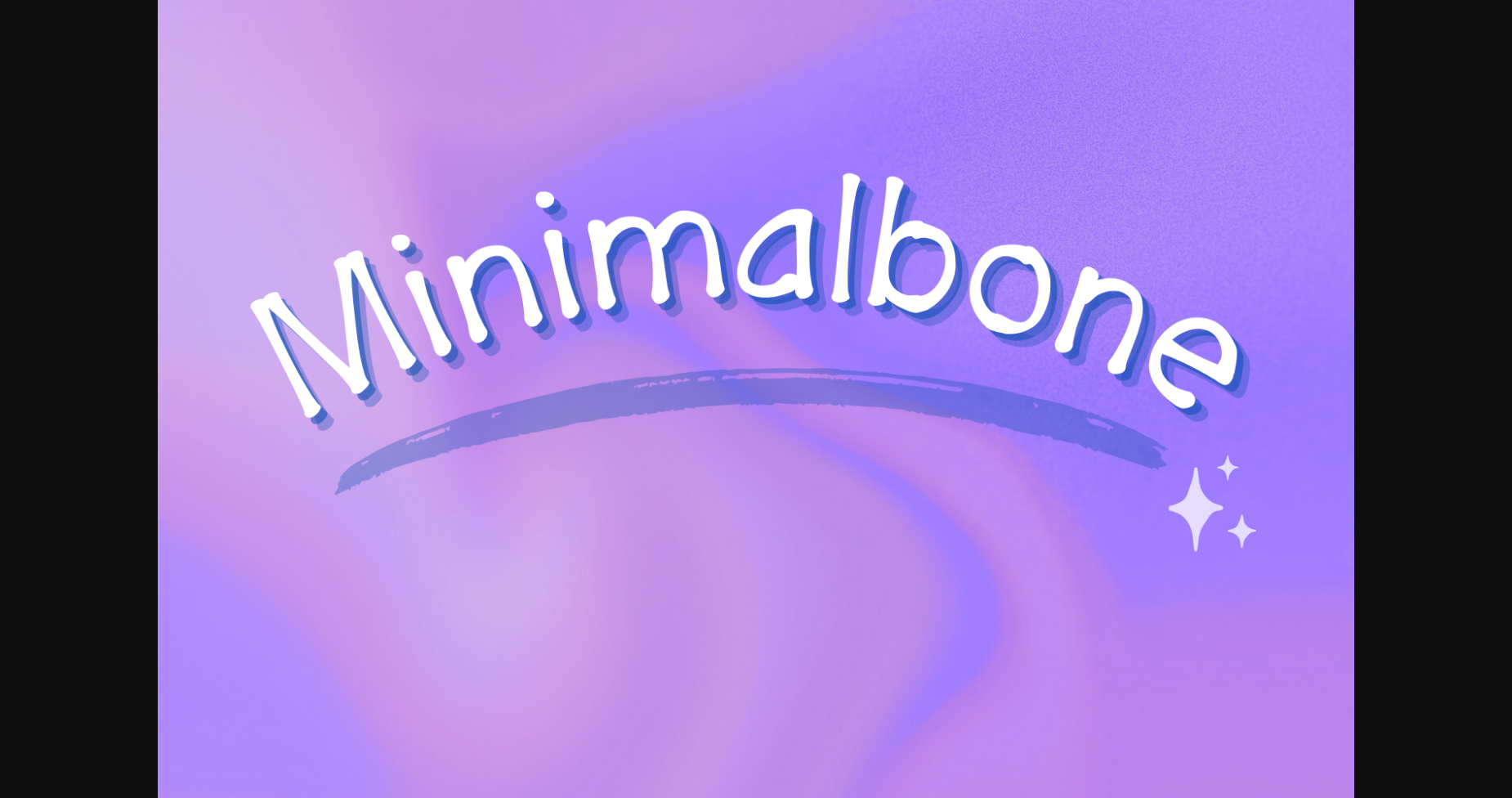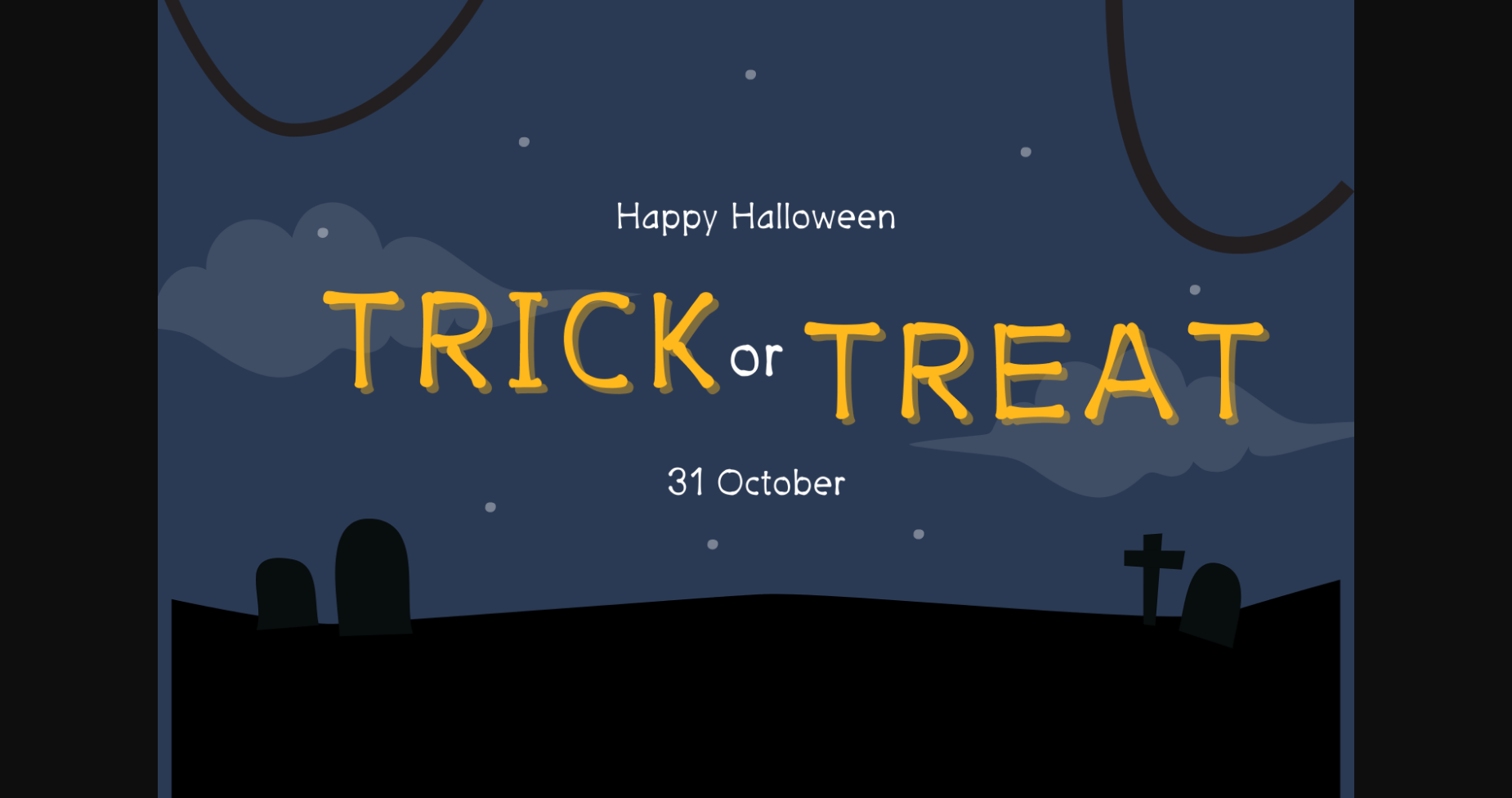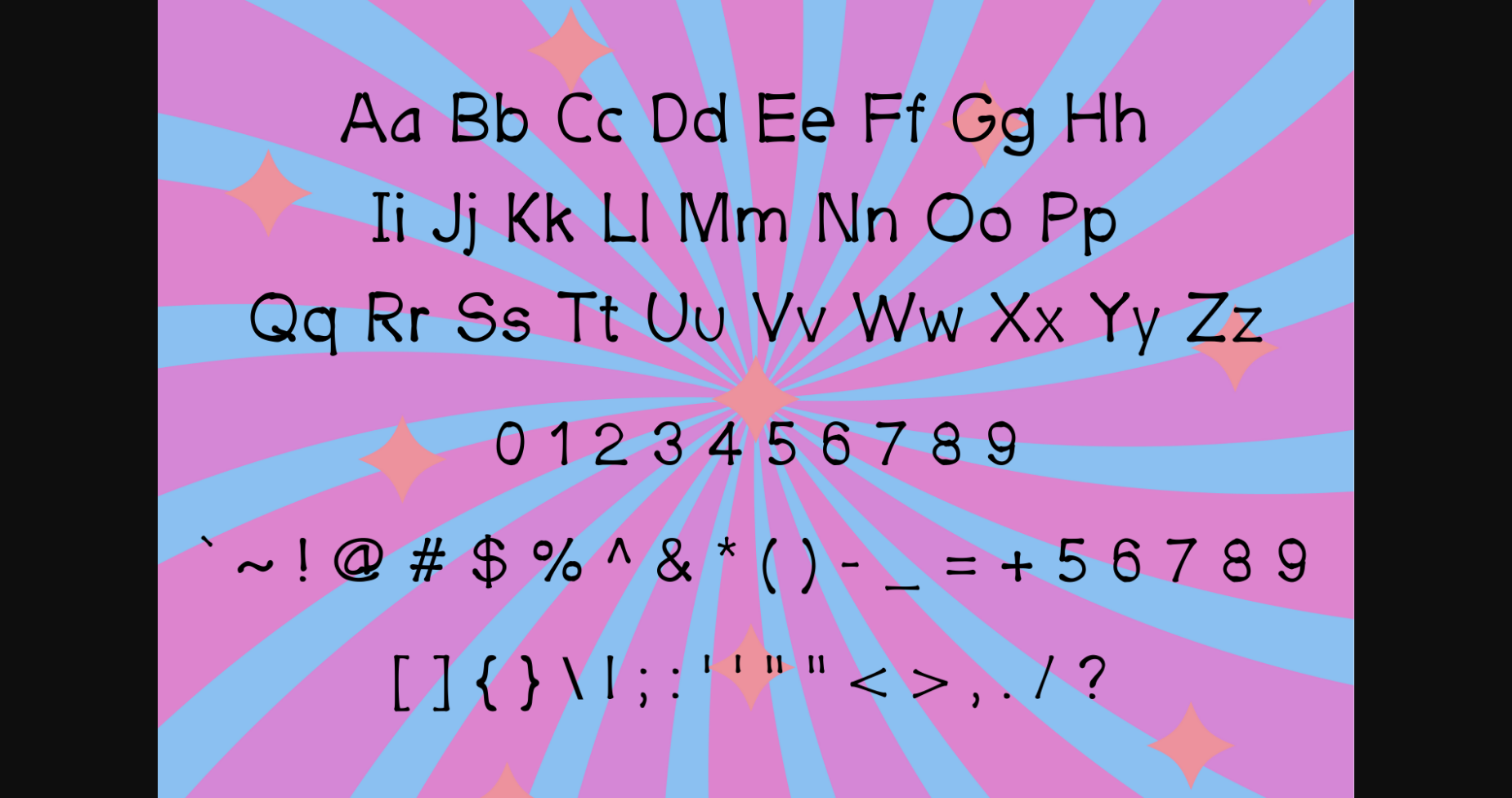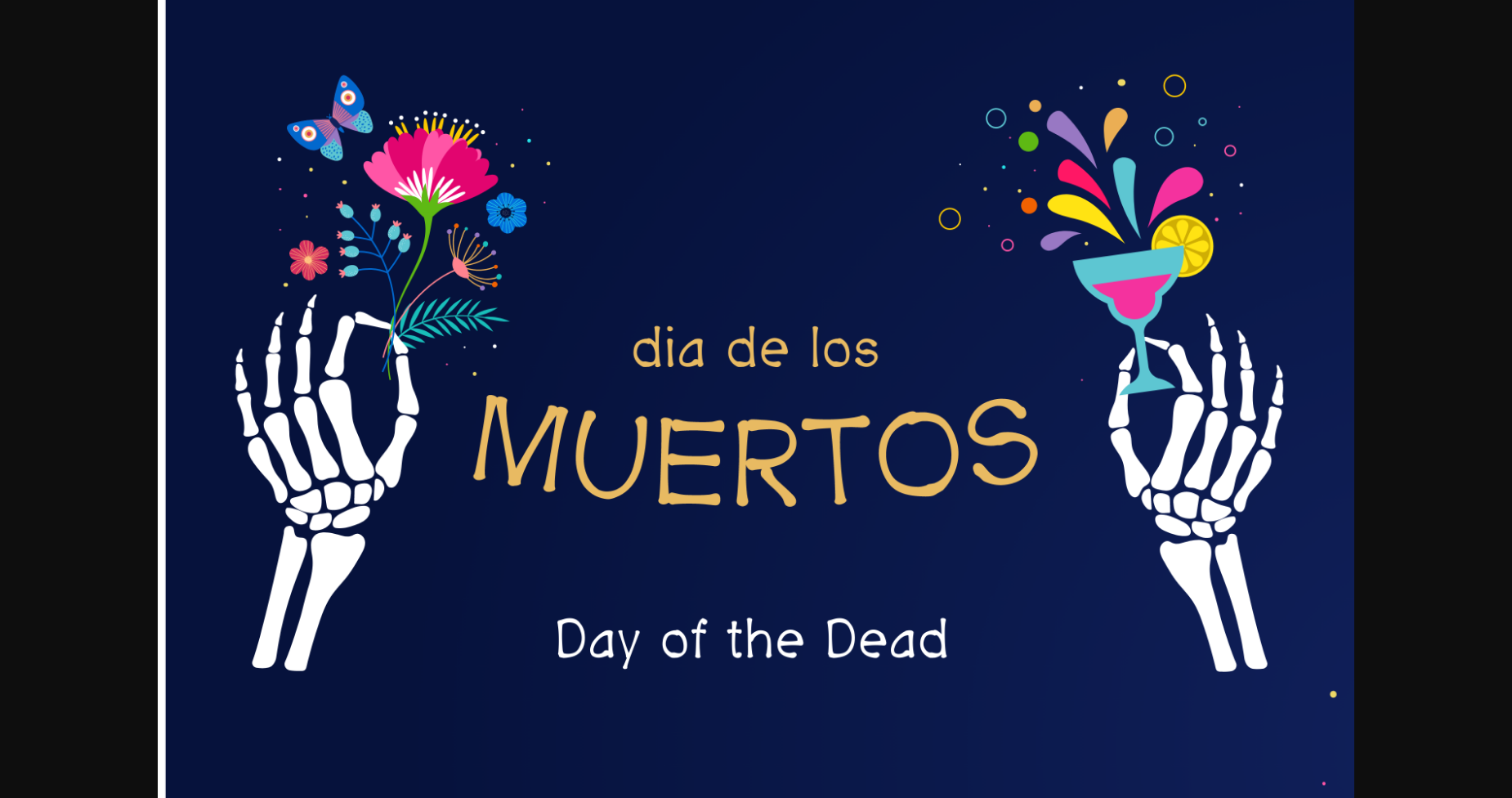
About Minimalbone Font
The font “Minimalbone” is a typeface that features bone-like characteristics. It is inspired by the structure and form of bones, incorporating clean lines and minimalistic design elements. The glyphs in the Minimalbone font have sharp angles and smooth curves, reminiscent of the skeletal framework. This font is suitable for various design purposes, especially when you want to add a unique and edgy touch to your projects. Its distinct bone-inspired aesthetics make it an intriguing choice for creating eye-catching headlines, logos, or any design that aims to convey a sense of minimalism and a hint of skeletal elegance.